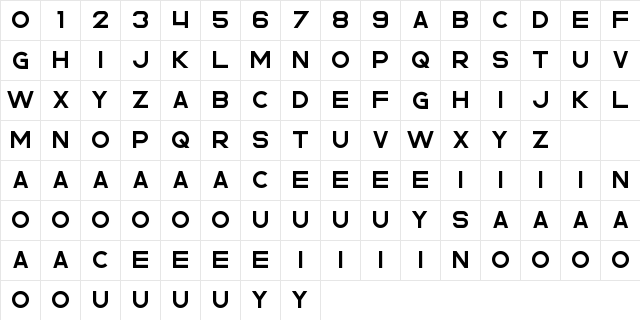
Rhino Regular
Design Context for Rhino Typeface
Rhino is a composed and adaptable typeface that performs quietly and consistently across a wide range of design contexts.